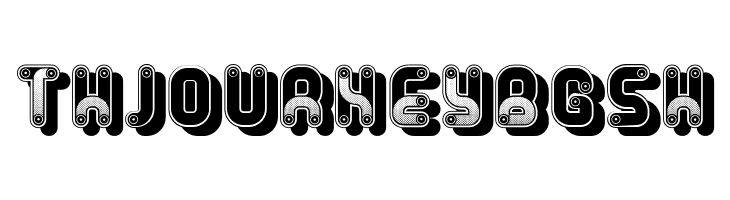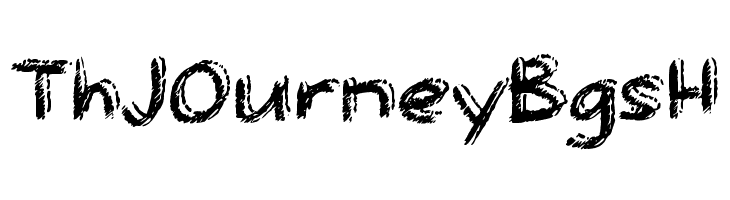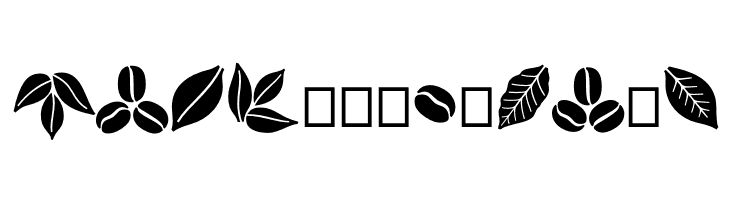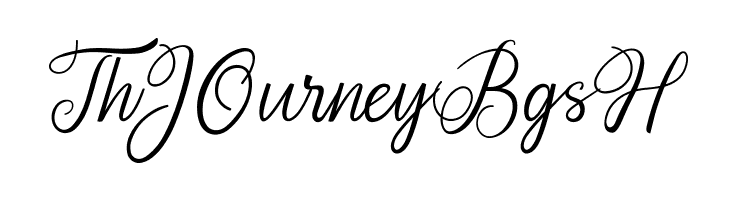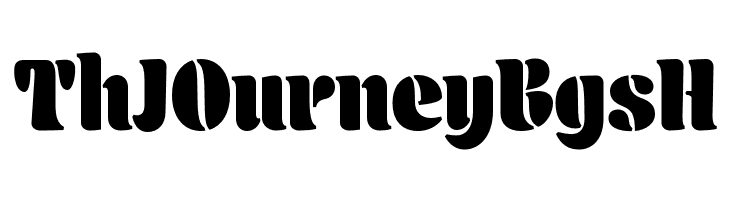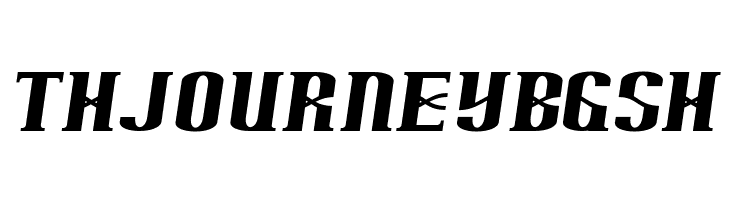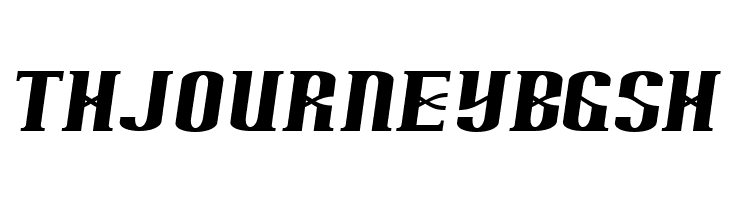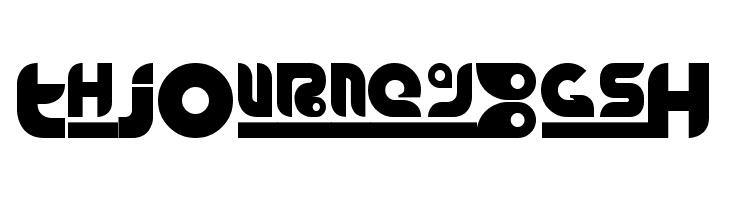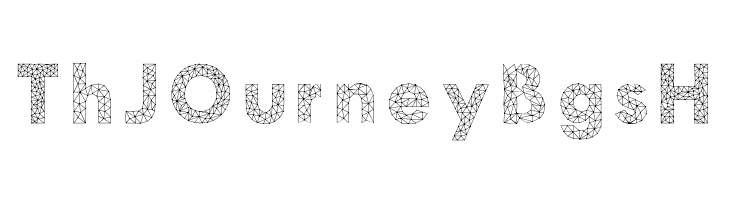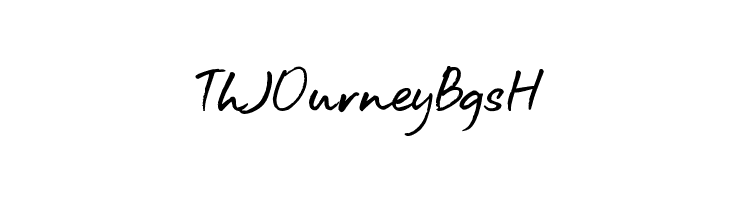
• Arnprior-Regular
A bold, dynamic font with sharp angles and a slight slant, offering a modern yet retro feel.
• ArnStylo
• Aroha
A casual, handwritten font with smooth, flowing strokes and a friendly appearance.
• Aroly
• Aroma Regular
A bold, decorative font with a retro, three-dimensional style.
• Aromanis
A bold, textured font with a hand-drawn, energetic style.
• Aromatic Ginger
An elegant cursive font with flowing, intricate letterforms.
• Aromatron Ornaments
Nature-inspired ornamental designs featuring leaves and coffee beans in bold silhouettes.
• Aromatron Regular
A bold, decorative font with thick, rounded strokes and a modern-vintage style.